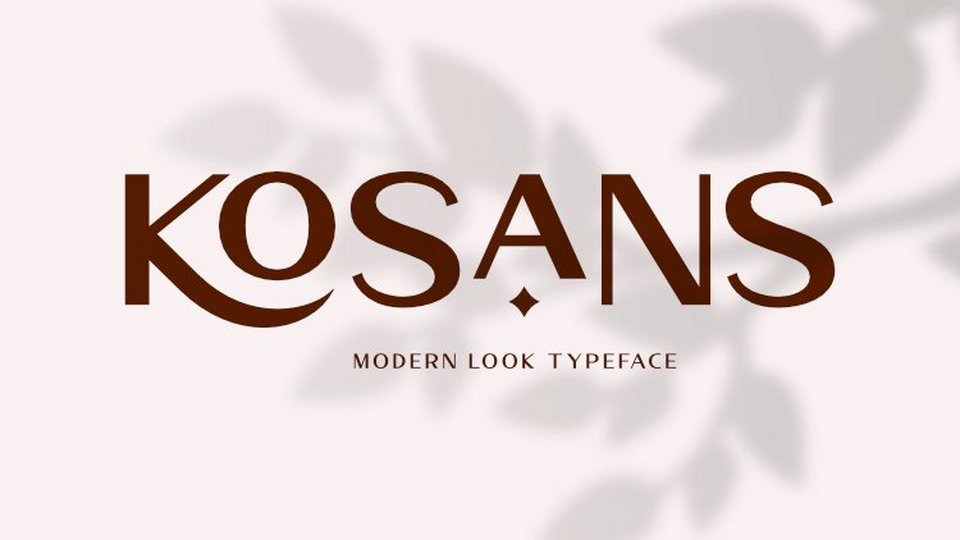
Download Kosans font, a contrast sans serif font with a vintage feel. Kosans has beautiful characters that makes it look simple but still classy.
Designer: Prioritype Co